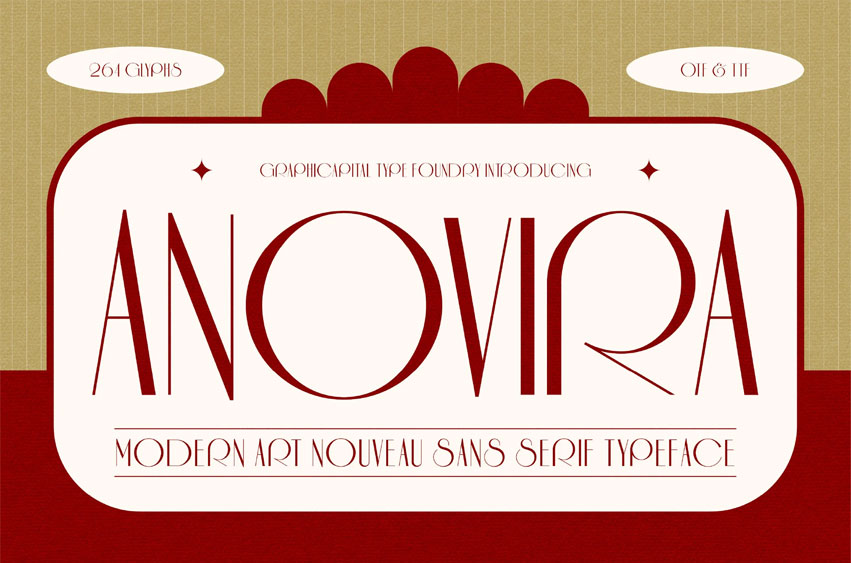
Anovira Font is a sans-serif font inspired by Art Nouveau, polished with a modern touch. Its clean letterforms convey elegance and timelessness, making it perfect for posters, invitations, branding, and refined designs.